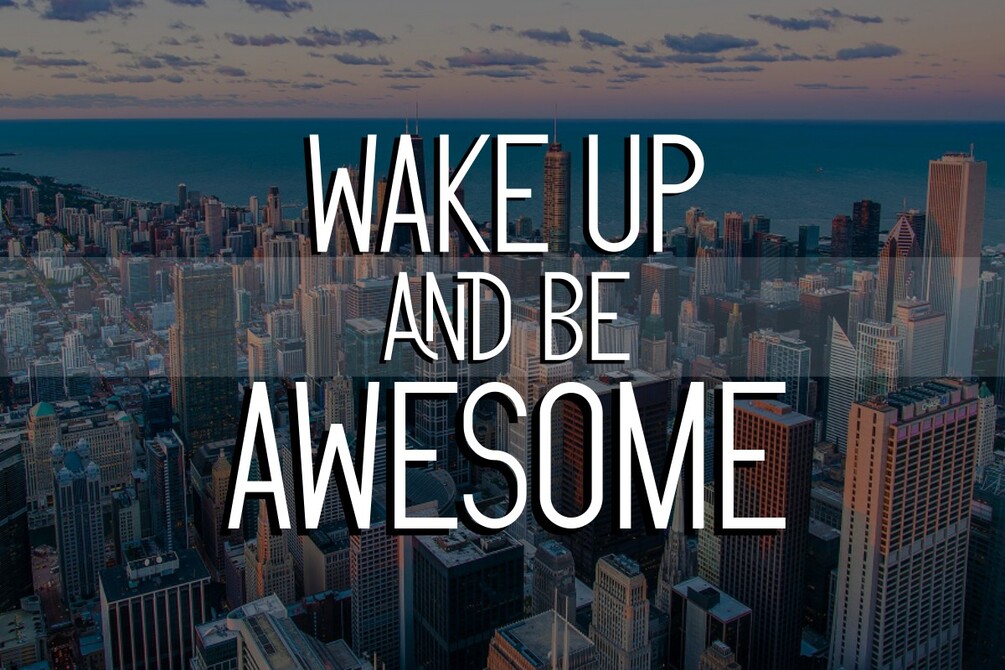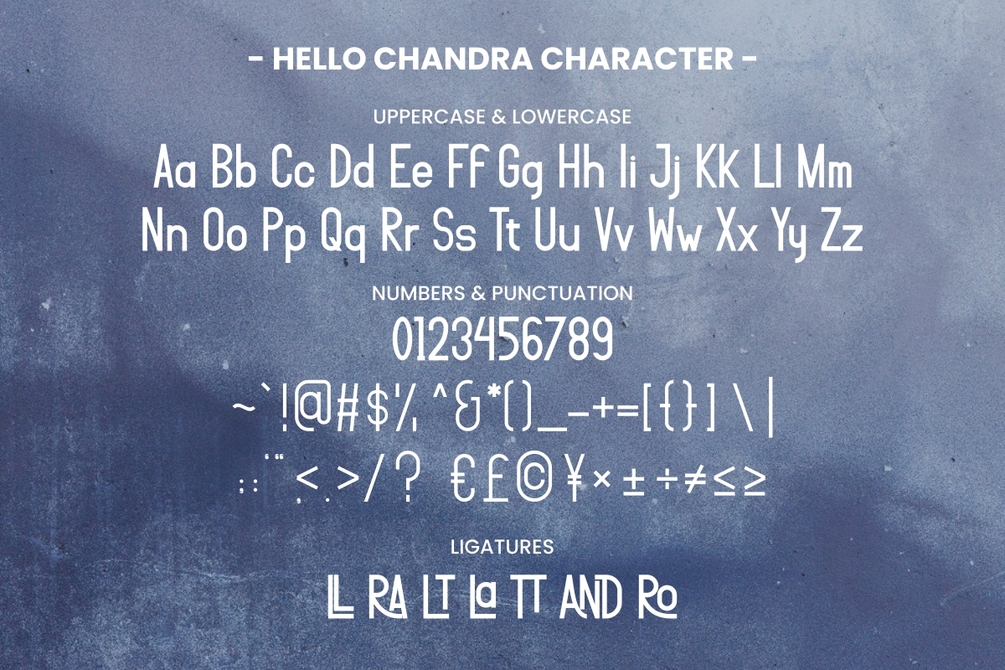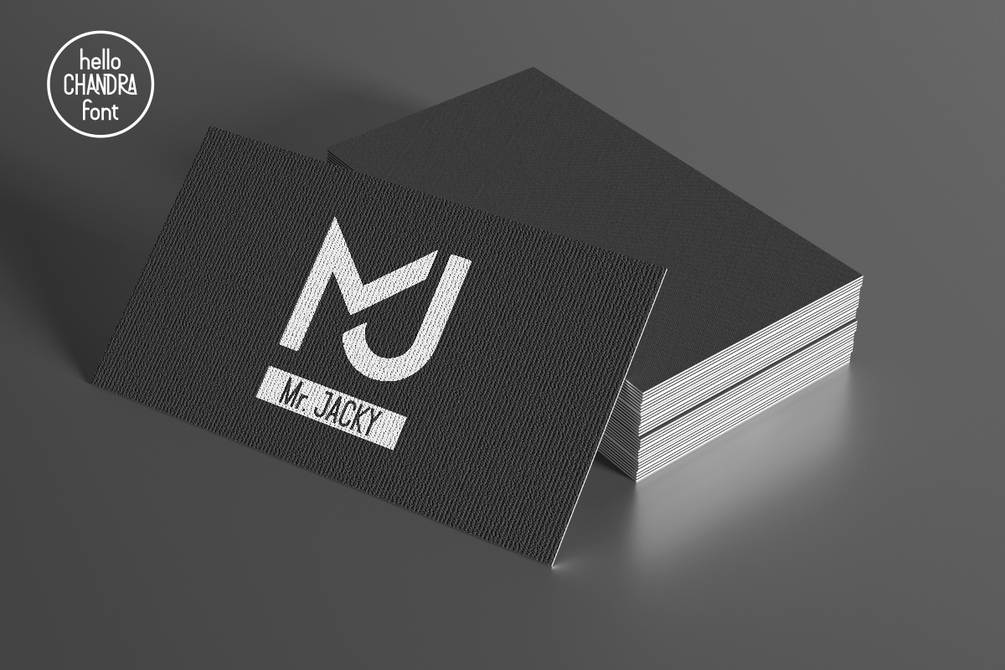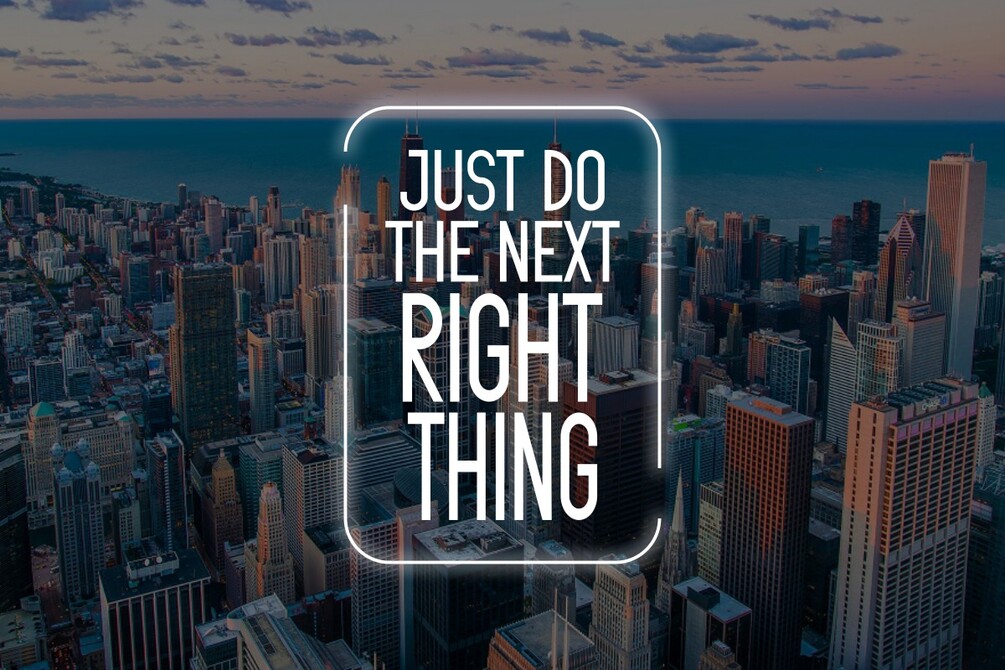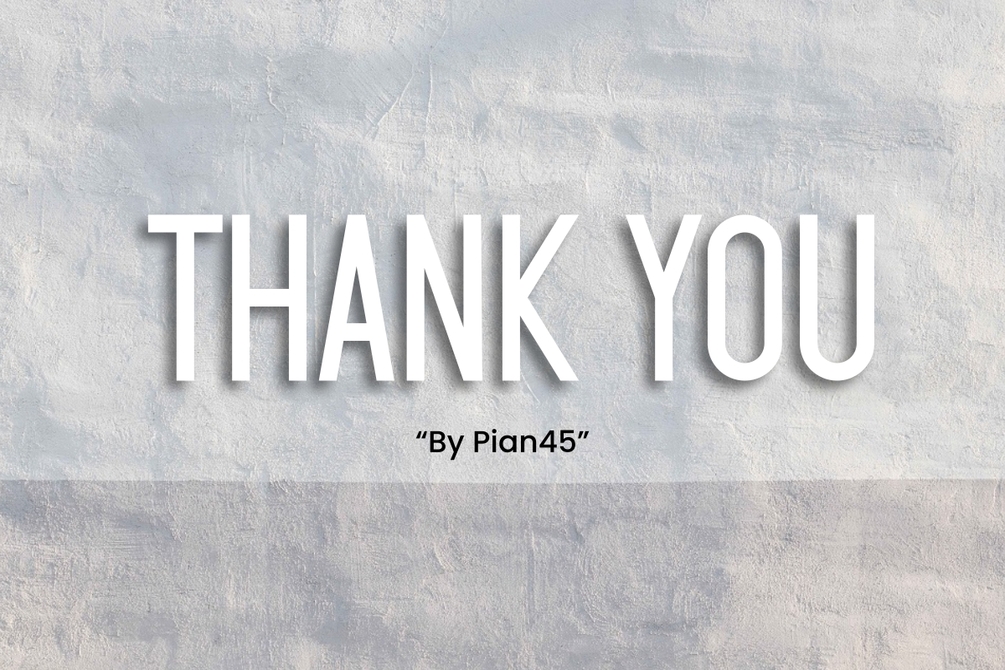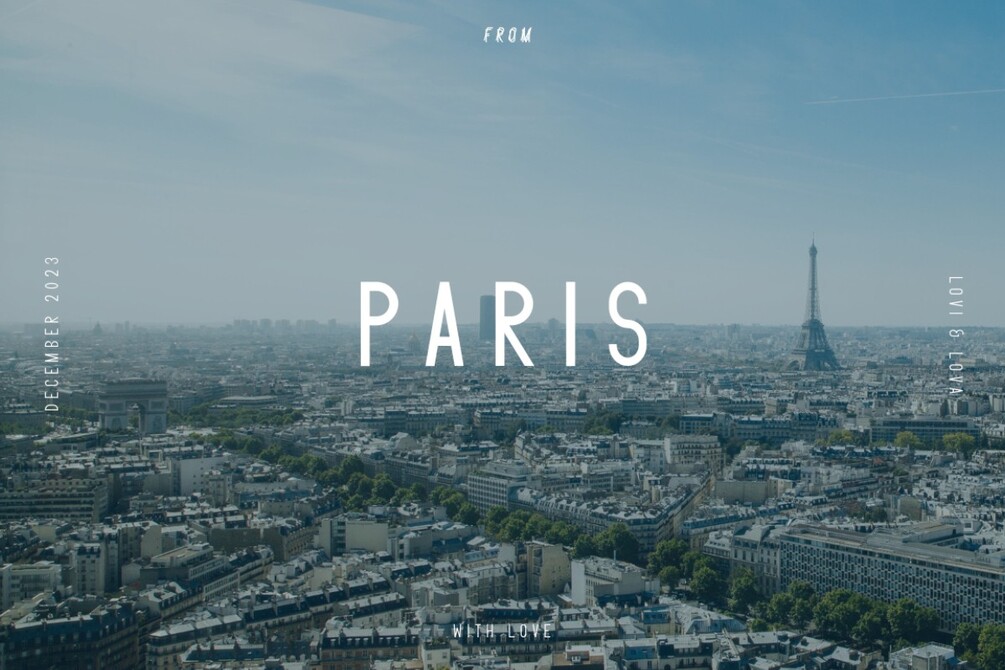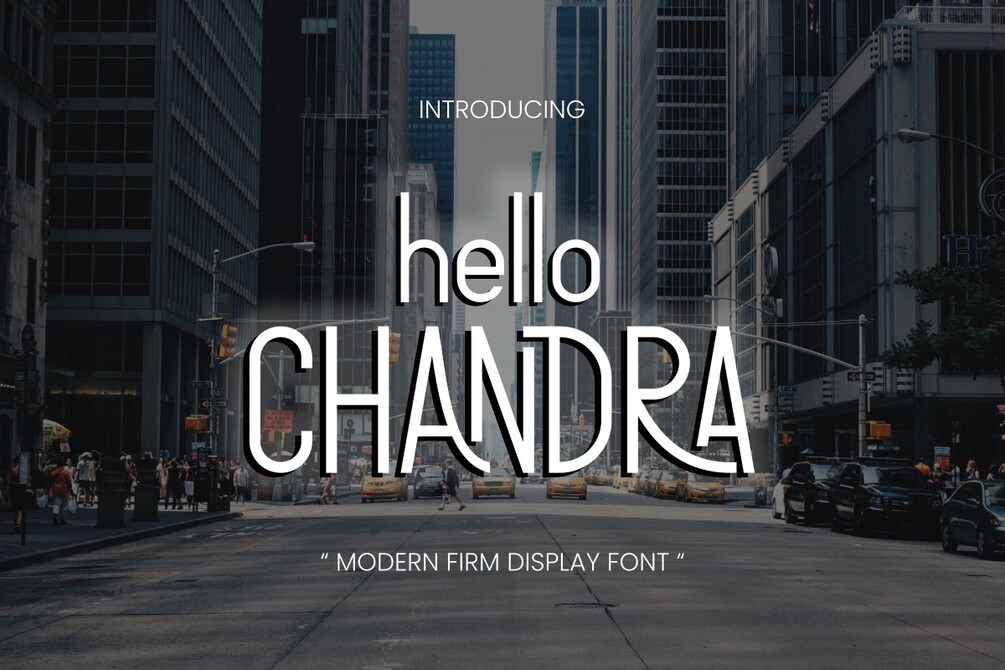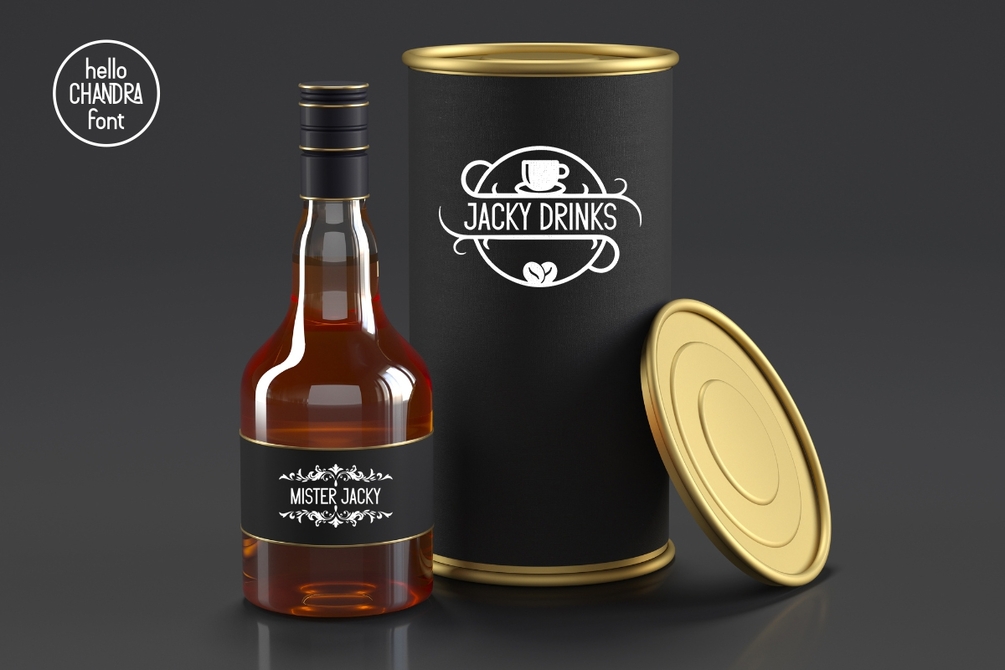
Hello Chandra - Modern Firm Display Font
Introducing "Hello Chandra", a captivating and contemporary firm display font that exudes professionalism and flair. This font is designed to make a bold statement, commanding attention and leaving a lasting impression in the corporate world.
With sleek and clean lines, "Hello Chandra" embraces modernity, perfect for businesses and brands seeking to project a forward-thinking and sophisticated image. The letterforms are elegantly crafted, striking a harmonious balance between professionalism and creativity.
- Uppercase and Lowercase letters
- Numbering, Punctuations and Ligatures